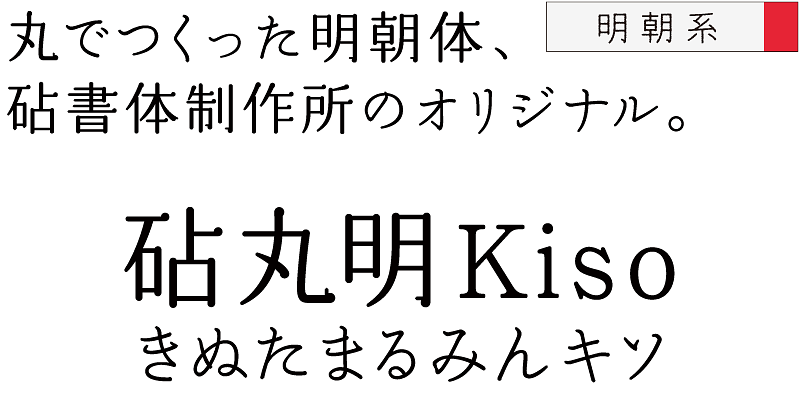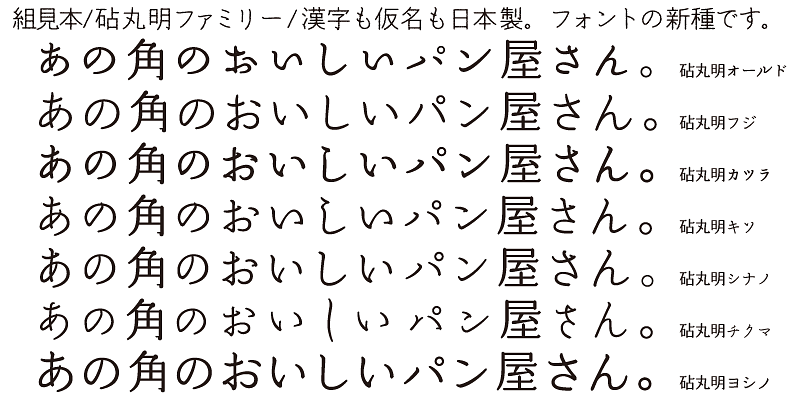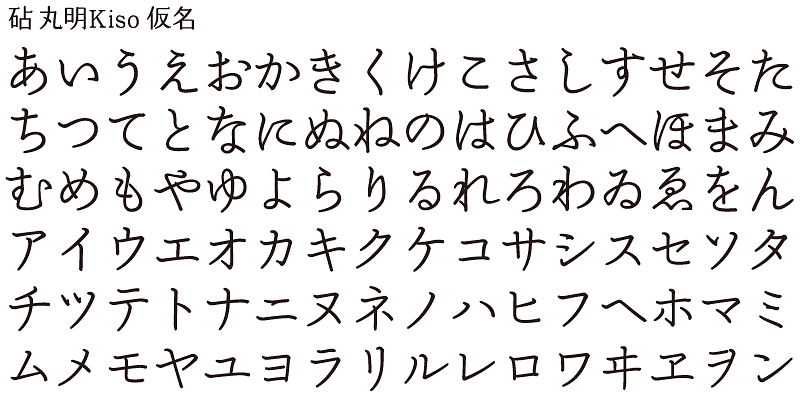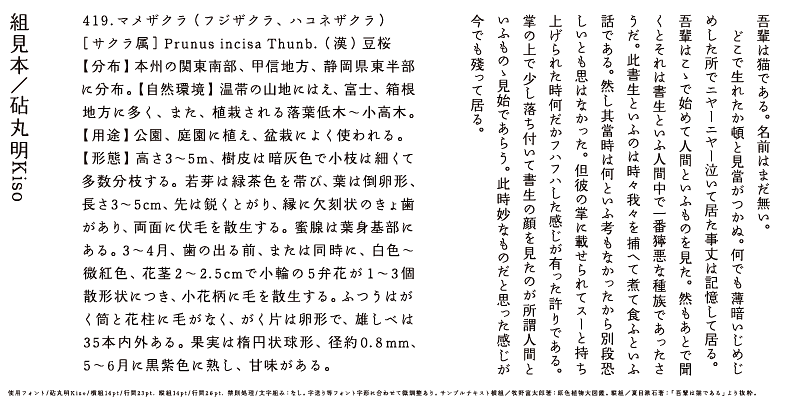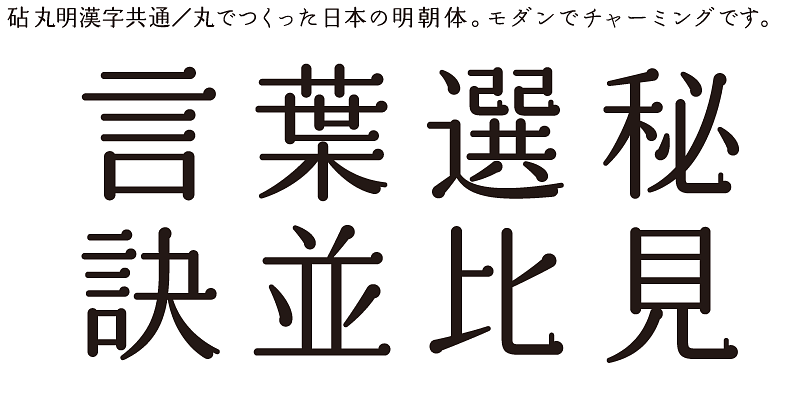
MaruminKiso’s kana character design emphasizes the movement and connection of pen strokes, balancing liveliness and calmness. Modern style kanji characters with classical kana characters give a rhythm to the typeset text.
The same Ideographic (kanji) characters are shared by all the Marumin variations. The design of kanji characters of Marumin is based on the Mincho type style in Japan, but it has stroke elements with rounded features. The terminals of its horizontal and vertical strokes, dots, tome and harai stroke shapes are all rounded. Marumin establishes a new category of “Rounded Minchotai” with seven kana variations in total.
One characteristic of the Japanese language is that it has kana syllabic characters. Kana characters were invented in Japan to represent sounds in Japanese and translate texts imported from China into Japanese. Kana characters are needed to create Japanese words and expressions from kanji/Chinese ideographic characters. While there may be ambiguities, these words and expressions exhibit the warmth and gentleness of the lives of people living in the small and densely populated land of Japan.
Kinuta Font Factory’s believes that kana characters are the origin of written words in Japanese, and we think that improving kana characters will make Japanese text more attractive. On average, 60% of Japanese text consists of kana characters – changing the shape of these characters changes the visual appearance of the text. The possibilities for typographic expression using simple, dynamic and curvilinear kana characters are vast, and the richness of Japanese text depends on kana characters. This is the reason why Kinuta Font Factory offers many variations of kana typefaces.